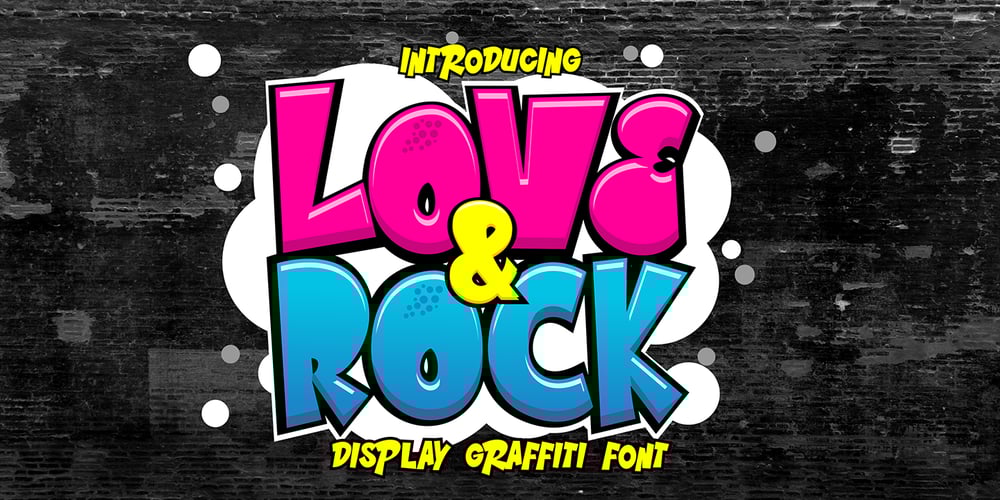
Love & Rock Font Family was designed by Sipanji and published by Sipanji21. Love & Rock contains 1 styles and family package options. “Love and Rock” is a bold and whimsical display font, characterized by its thickness and quirky design. Fonts like these often feature playful and unconventional letterforms, adding a touch of personality to the text. “Love and Rock” is well-suited for creative projects that require a bold and eye-catching typographic style with a hint of whimsy. It could be an excellent choice for designs related to music, entertainment, or any context where a vibrant and distinctive font is desired.